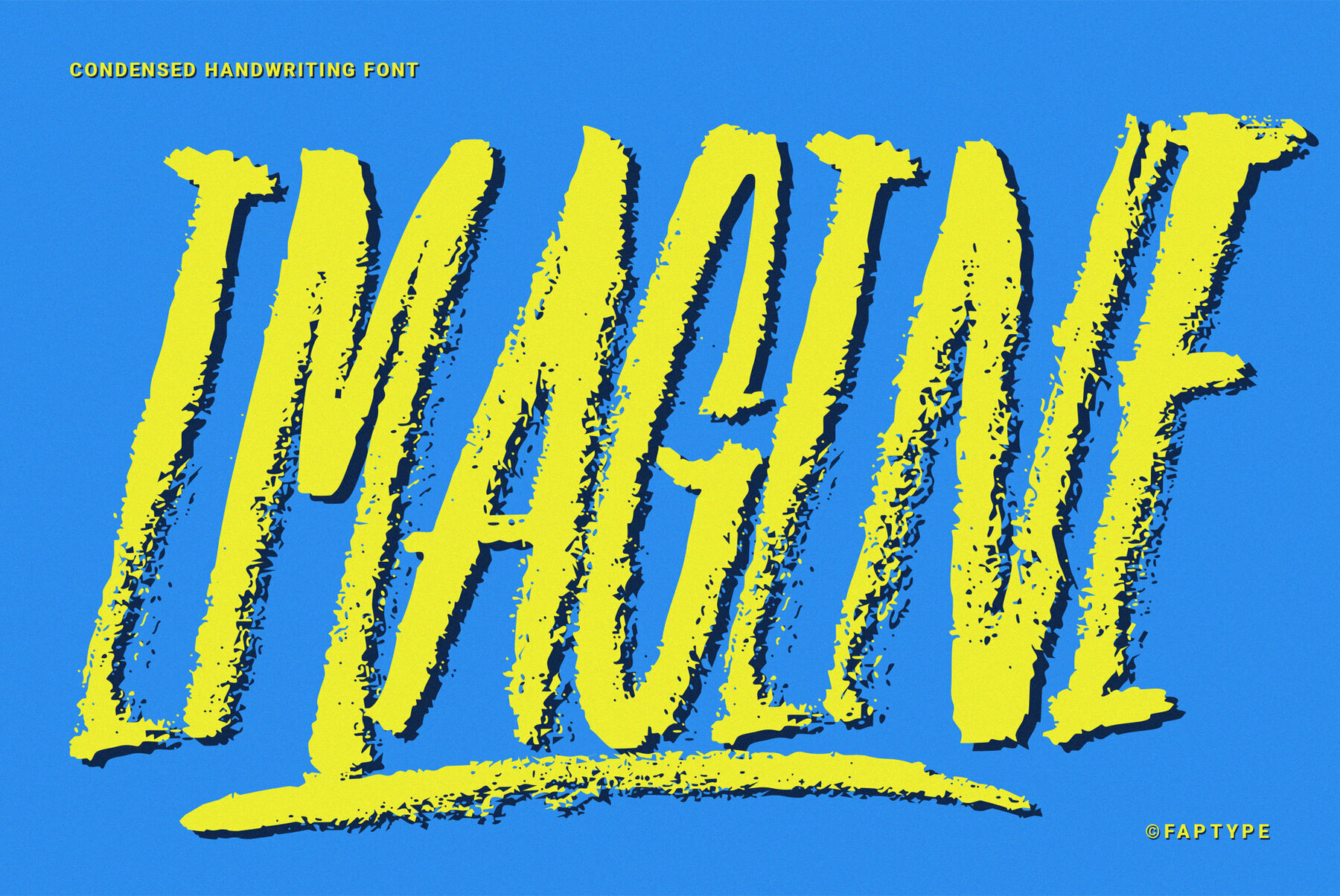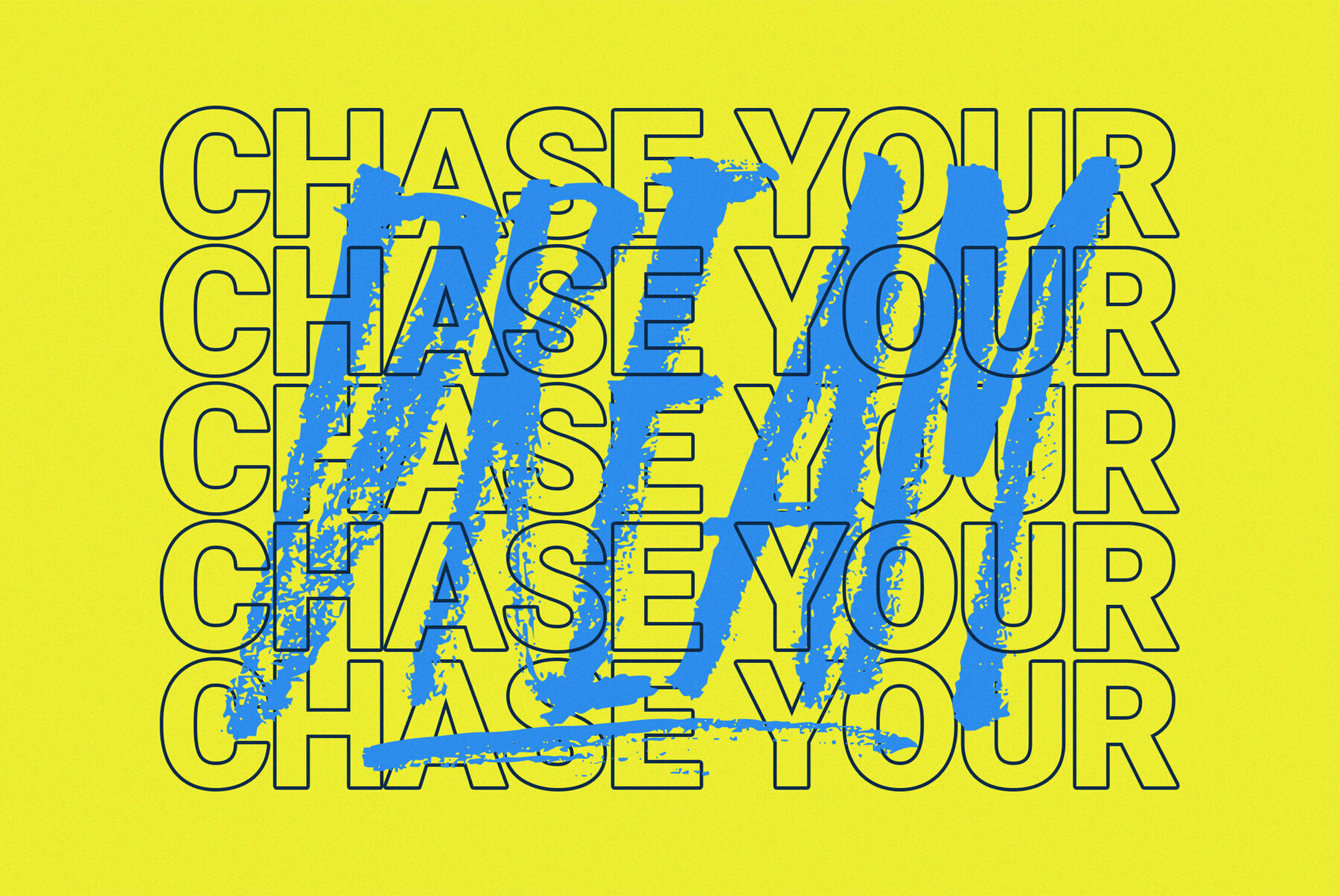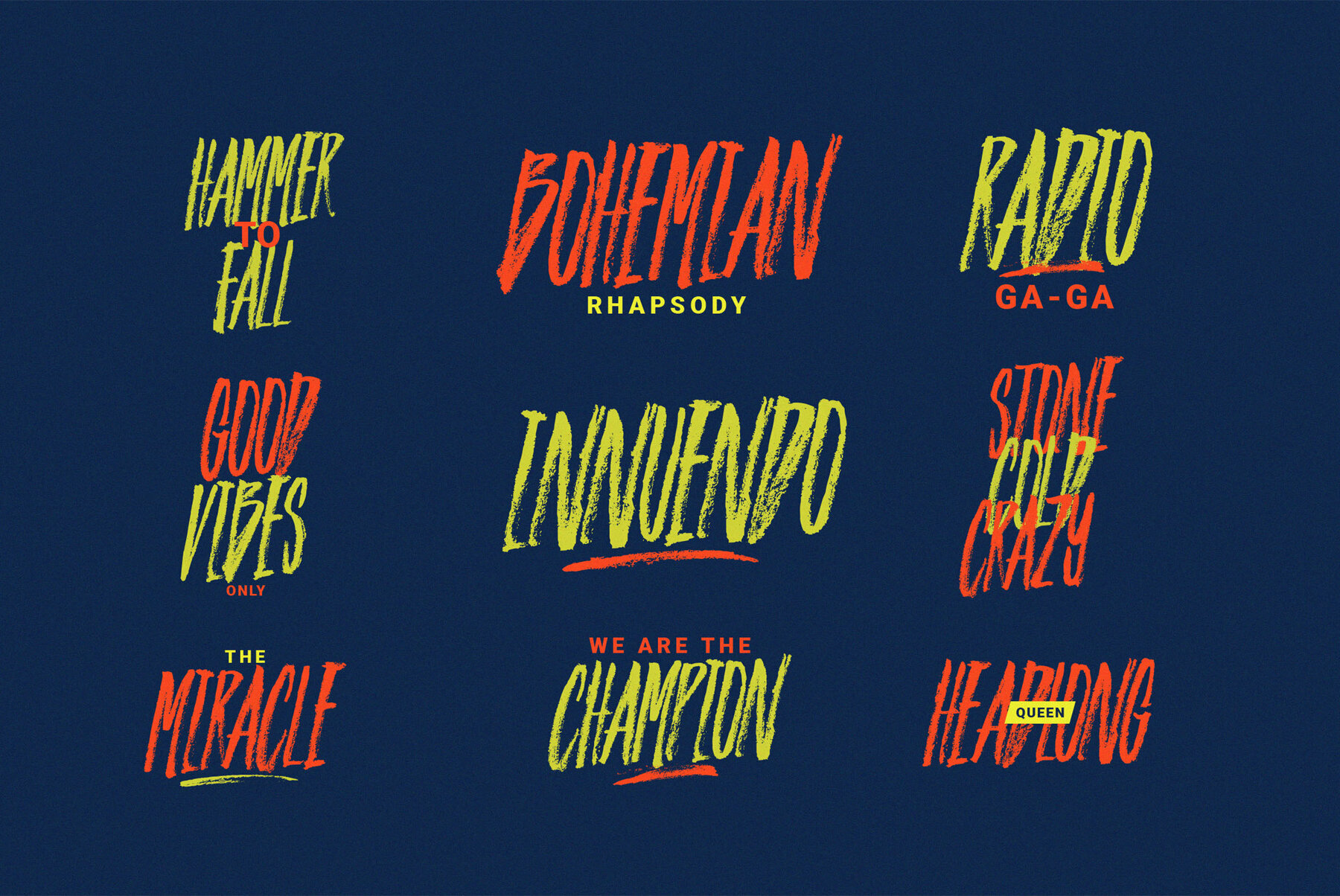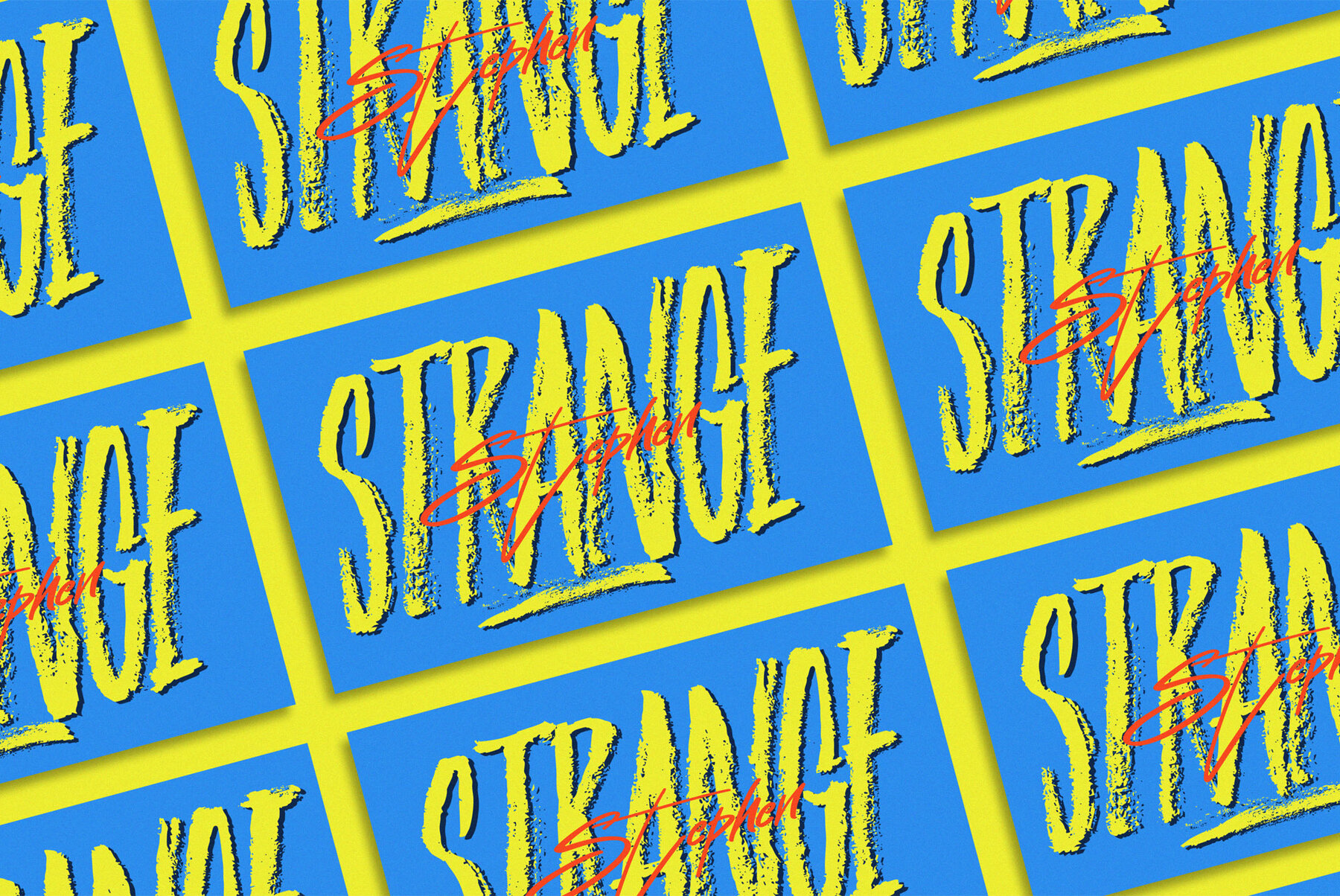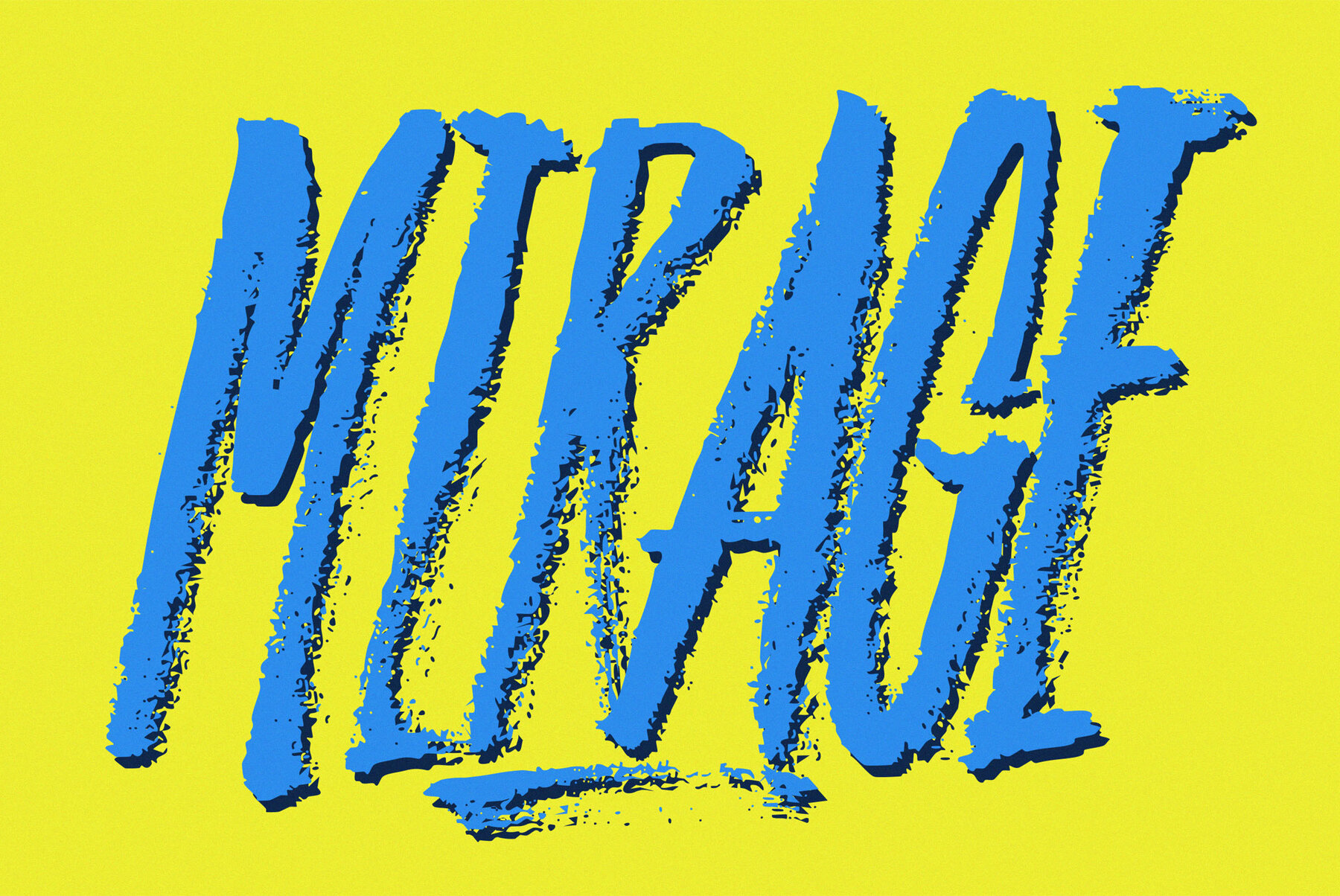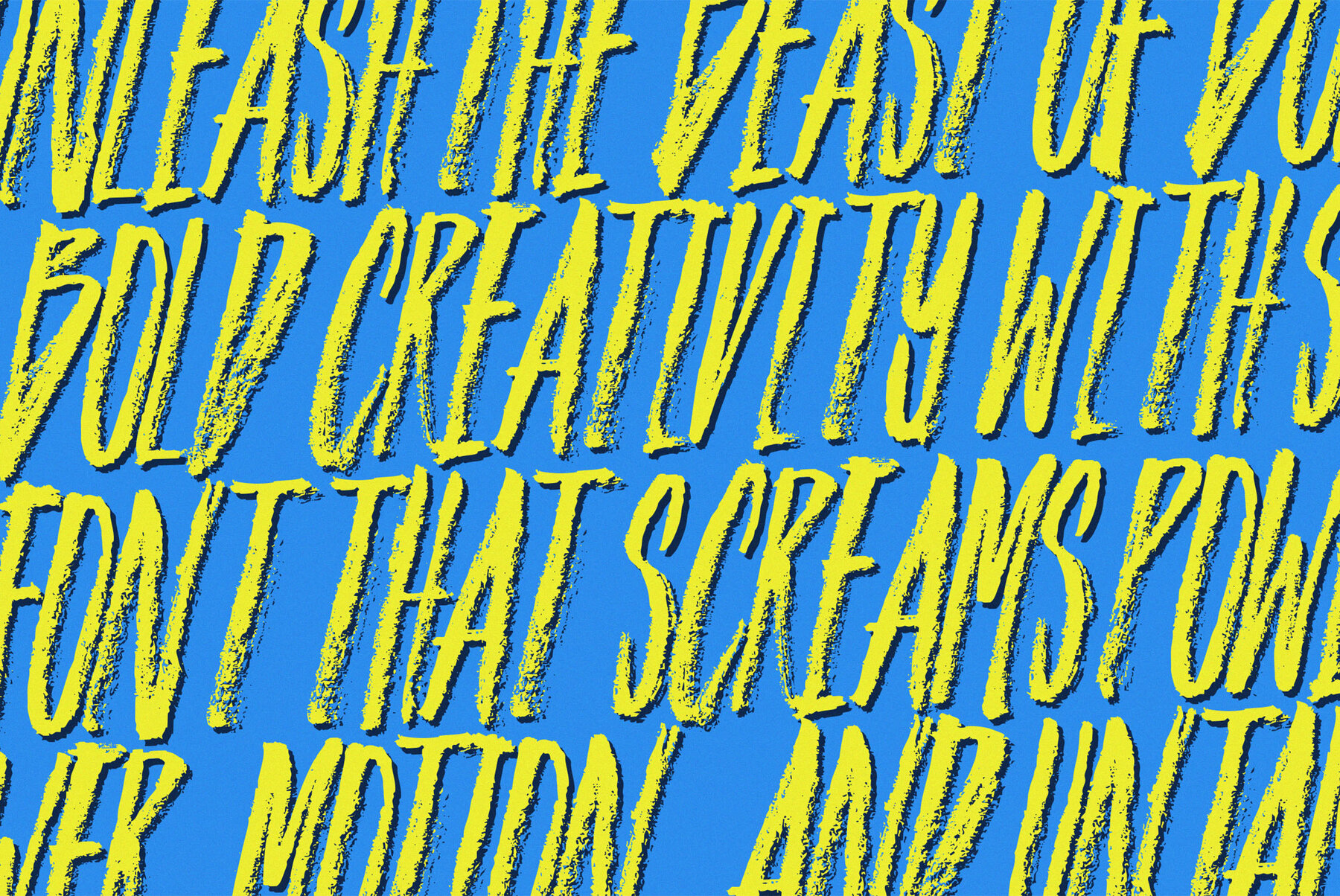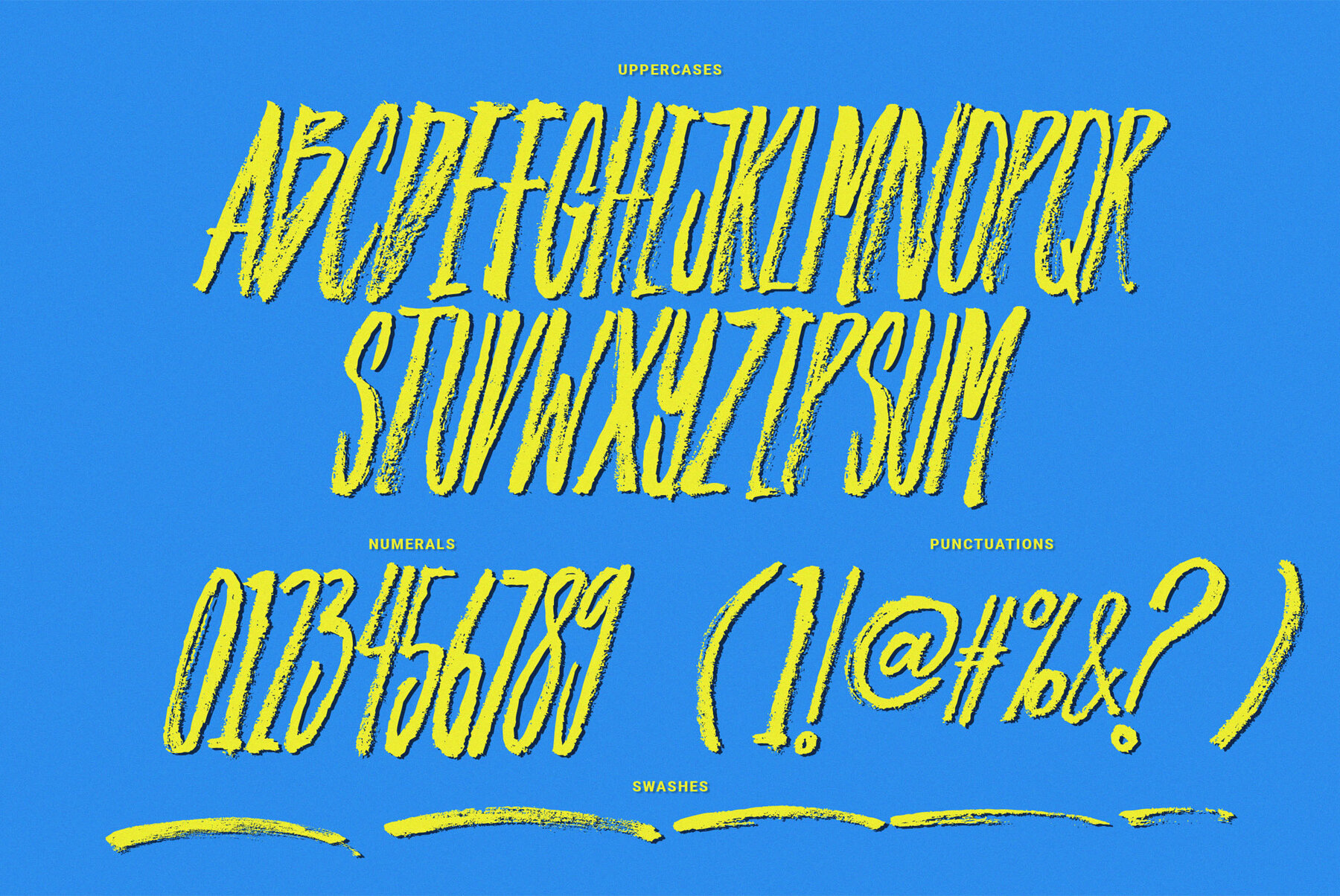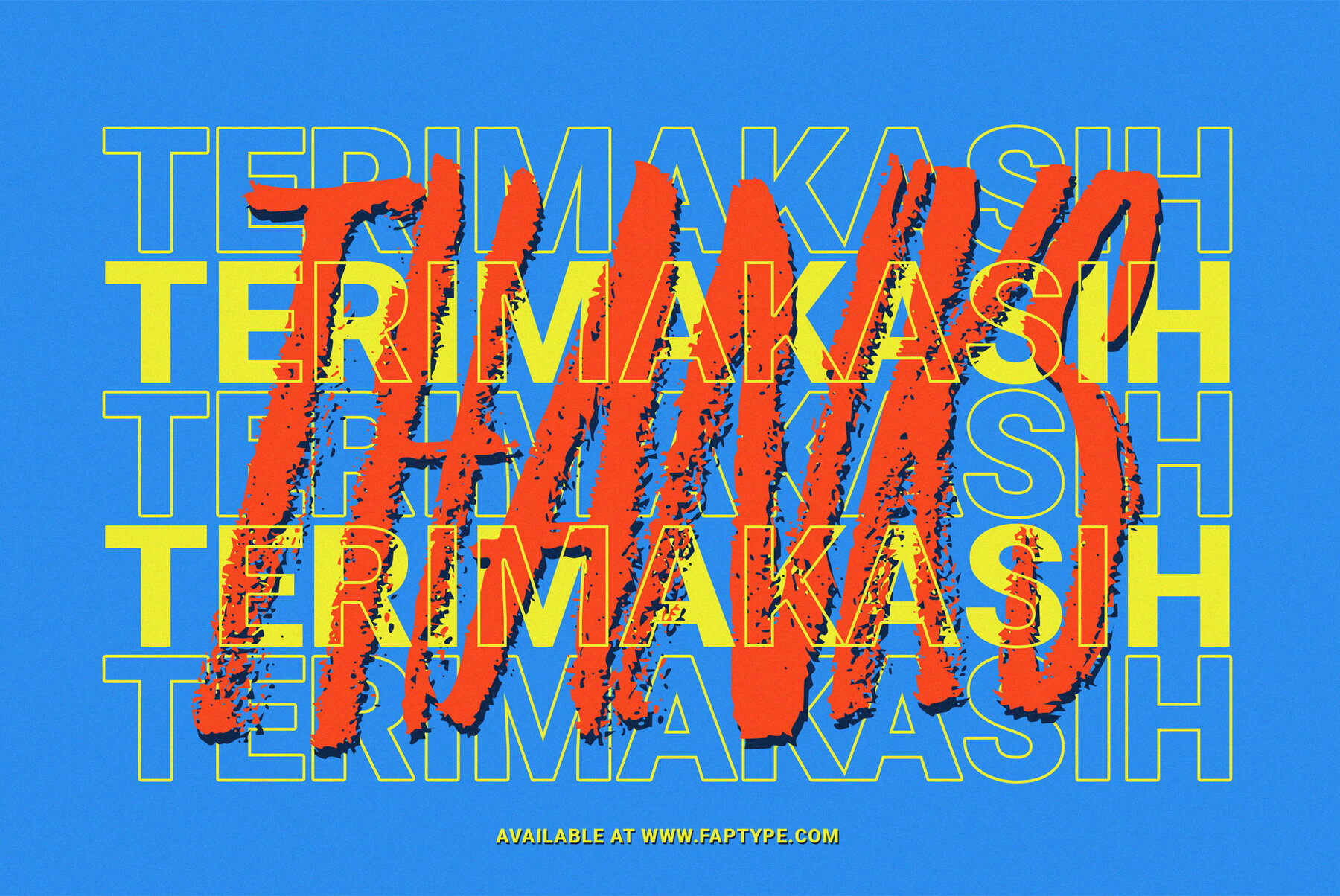
Imagine Font
Imagine Brush Regular
Step into a realm where creativity meets robust elegance. Imagine is a handcrafted condensed brush font that challenges conventional design norms. Born from a Kuretake dry brush and meticulously digitized, Imagine encapsulates the raw vigor of quintessential hand-lettering. Each letter boasts authenticity, steeped in imperfection and boldness. Imagine serves creators seeking more than sterile shapes, offering uppercase-only glyphs filled with expressive brush textures. It is ideal for band posters, streetwear branding, film titles, or eye-catching editorial layouts. This font doesn’t murmur—it asserts itself audaciously. Beyond a typeface, Imagine is a creative powerhouse. Featuring additional swashes, comprehensive punctuation, symbols, and multilingual capabilities, it is tailored for daring design undertakings. Its condensed form optimizes space, maintaining a raw, untamed aesthetic throughout. Imagine is crafted for visionaries, offering an unparalleled tool to create unforgettable designs. Let its rich texture speak volumes for you.Imagine: The Handcrafted Brushed Typeface for Bold Designs